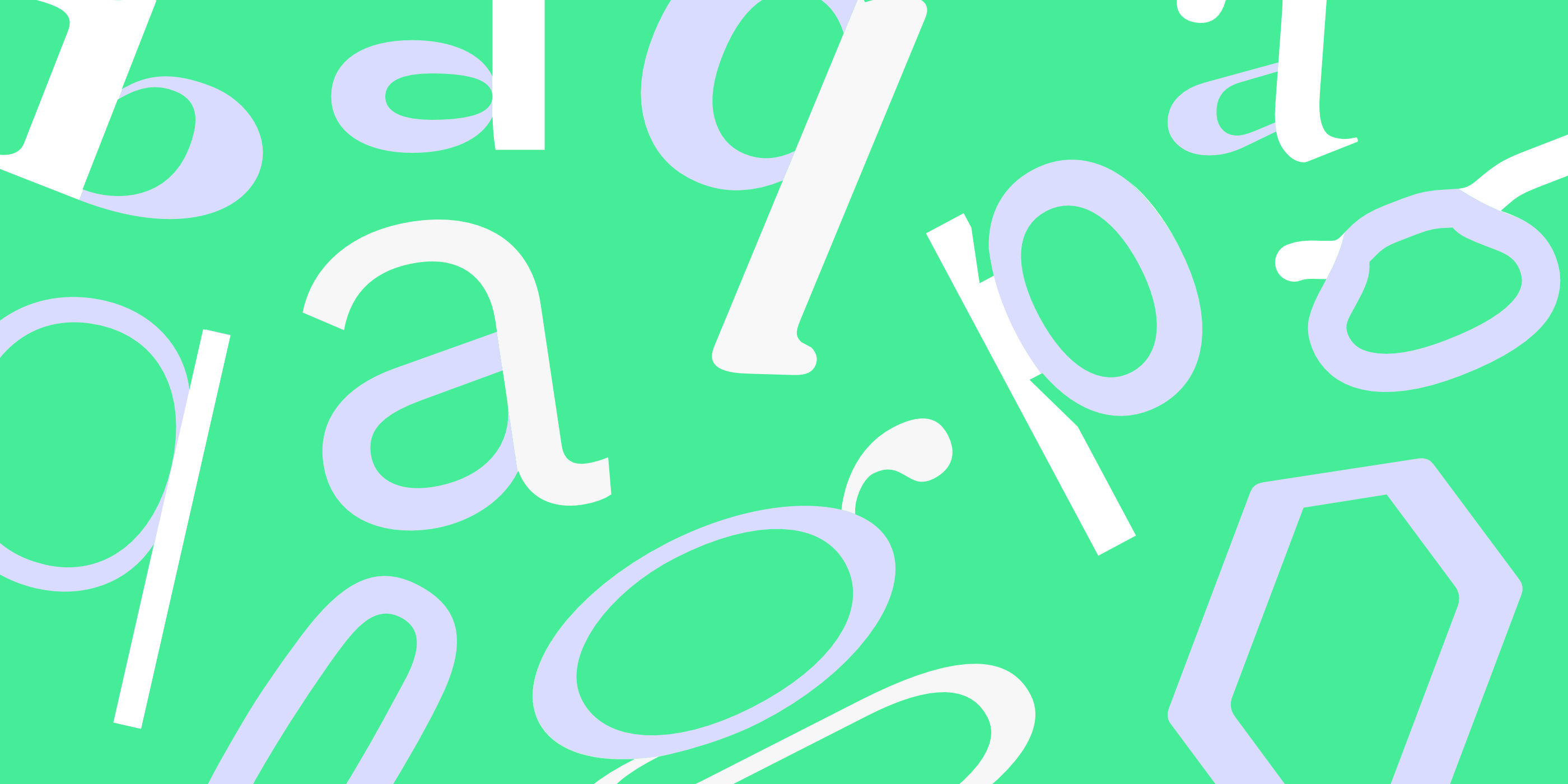
When you look closely at a typeface, you’ll discover that every character is a carefully structured and functional piece of art, made up of distinct elements we call Type Anatomy. Understanding these details is key to picking the right font for any project, or to create the perfect glyph, for a font family with high legibility. Today you’ll learn more about the Bowl and the Counter, two of these elements that work together in the composition of certain letters, and you’ll see how they give out a hand on setting the tone and feel that a typeface can have.
Bowl
A bowl is one of the elements that compose the DNA of a typeface. This term refers to the smooth, curved stroke that forms the rounded section of letters like ‘d,’ ‘b,’ ‘o,’ ‘D,’ and ‘B,’ containing an enclosed space known as the counter, which we’ll talk about later. The way this curve is shaped, its thickness and its proportion to the counter, does a lot of heavy lifting for your design.
This directly influences the overall visual weight of the text and how open or airy a word appears, making the bowl a major factor in a font’s legibility and personality. Whether it’s thin and elegant or thick and chunky, the bowl works alongside other elements to convey emotion and function.
Counter
Like we mentioned earlier, Bowls and Counters are interconnected. In type anatomy, Counters (also called counterform or counterspace in type anatomy) are the spaces within the bowls, the negative space inside it. They can be classified in two categories:
- Closed counter: Completely enclosed, like in “o” or “b,” seen with the bowl of those letters.
- Open counter: Partially open, as in “c”.
Another term related with Open Counters is “aperture” which is the opening between an open counter and the outside of the letter, such as in letter “C” for example.
The term “Counter” comes from the traditional craft of type making, where a counterpunch was used to carve indentations into the metal punch that formed the molds for letters.
Font Recommendations for Unforgettable Bowls and Counters
Here are some recommendations, curated by our team for you to look at and see which of these fonts with eye-catching bowls and counters suit your ideas best.
1. Syne by Lucas Descroix
Syne is that perfect mix of modern geometric structure and unexpected Renaissance flair in its italic. If you need a font family with a Type Anatomy that’s stable yet surprising across seven different styles, this one designed by Lucas Descroix for Bonjour Monde is ideal to grab. Get it here.
2. Truculenta by Iván Castro
Truculenta is an irregular sans designed by Iván Castro for Omnibus Type that brings a cool, mid-century vibe with a fun, distorted twist in its type anatomy. Try the “Dirty” version when your headline needs a distinctive grotesque edge and a little character. Find it here.
3. Fraunces by Phaedra Charles & Flavia Zimbardi
Fraunces is an Old Style soft-serif designed by Phaedra Charles and Flavia Zimbardi and has a bowl that makes it feel both classic and totally fresh. It’s perfect for creating a display type that has that warm, early 20th-century charm without looking dated. Check it out here.
4. Velvelyne by Mariel Nils and Manon Van der Borght
Velvelyne is a modern take that evolves from the classic Liberation Sans structure, making it a reliable, flexible choice for screen-based projects. Distributed by Velvetyne and designed by Manon Van der Borght and Mariel Nils with contributions by Raphaël Bastide and Benjamin Dumond, use this one when you need a clear, contemporary digital voice that’s available under a super friendly license. Get it now here.
5. Standard Graf by Peter Wiegel
Standard Graf is a fantastic stencil Gothic made by Germany-based designer Peter Wiegel that brings an industrial, cut-out look right to your desktop. If you’re designing something that needs a raw, impactful, or vintage signage feel, this digitized classic is your best friend. Look for it here.
6. Work Sans by Wei Huang
7. Destra by Cédric Rossignol-Brunet
Destra is a beautiful revival typeface, designed by Cédric Rossignol-Brunet and inspired by a tiny character found on an old Italian theater ticket. Use this font to bring a unique, historical touch and a sense of discovery to your branding projects. Take it here.
8. Cormorant Unicase by Christian Thalmann
This is a distinctive unicase serif made by Christian Thalmann that gracefully blends uppercase and lowercase forms into a single visual style. Distributed by Catharsis Fonts Foundry, it takes its inspiration from 16th-century Garamond types but feels completely fresh and contemporary for display use. Find it here.
9. Fliege Mono by Pavel Laptev
Fliege Mono breaks the usual rigidity of monospaced fonts by adding a unique human touch, like playful ink traps. Designed by Pavel Laptev, If you need a font that looks like clean code but still has plenty of character, this one is a great pick. Check it here.